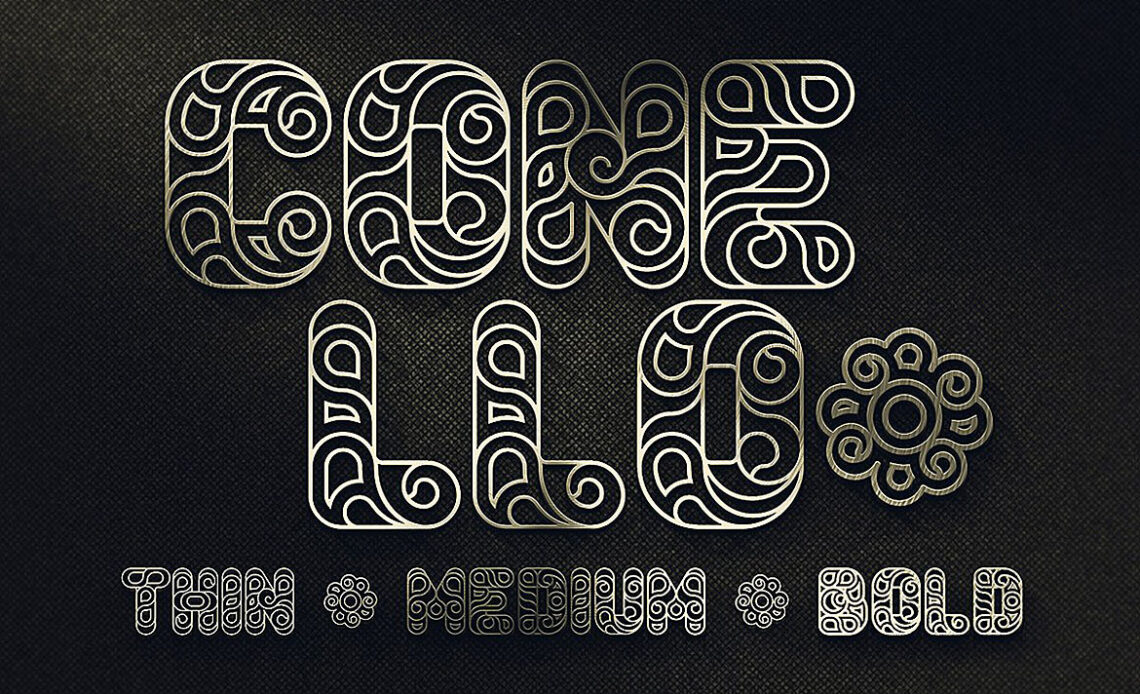
Unleash your creativity and embark on a typographic journey with Conello Font, an awe-inspiring display font that will transform your designs into captivating masterpieces. Its rounded edges and substantial weight exude a sense of solidity and strength, while its intricate flourished designs lend an air of delicate femininity, creating a visual symphony that dances before the eyes.
With Conello Font as your creative ally, headlines and displays will leap off the page, commanding attention and leaving an indelible mark on your audience. Its captivating curves and elegant flourishes evoke a sense of timeless beauty, effortlessly elevating your designs to new heights of sophistication.
Step into a world where letters come alive, where every word carries a story, and every design tells a tale. Conello Font is your gateway to this magical realm, empowering you to craft visual narratives that resonate with your audience on a deeper level.
Conjured by the masterful hands of JumboDesign, Conello Font is a testament to the transformative power of typography. Its every letter is a work of art, meticulously crafted to convey emotion, evoke imagination, and transport your audience to a realm of pure aesthetic delight.
Whether you're a seasoned designer seeking to expand your typographic palette or a novice yearning to make an impact with your designs, Conello Font is the perfect companion. Its versatility knows no bounds, adapting seamlessly to a myriad of creative endeavors, from branding and marketing materials to website design and social media graphics.
Unlock the full potential of your creative vision and let Conello Font guide you on an extraordinary typographic adventure. Embrace its beauty, harness its power, and watch as your designs blossom into breathtaking works of art.